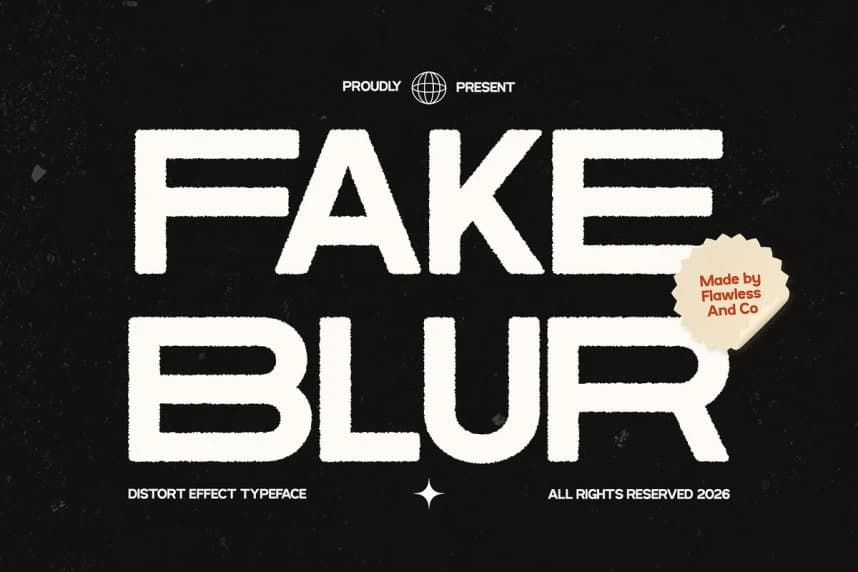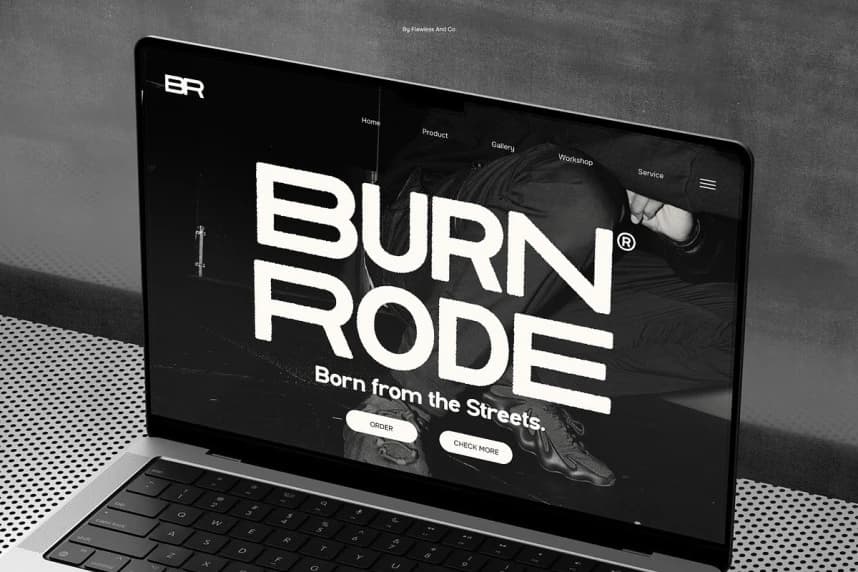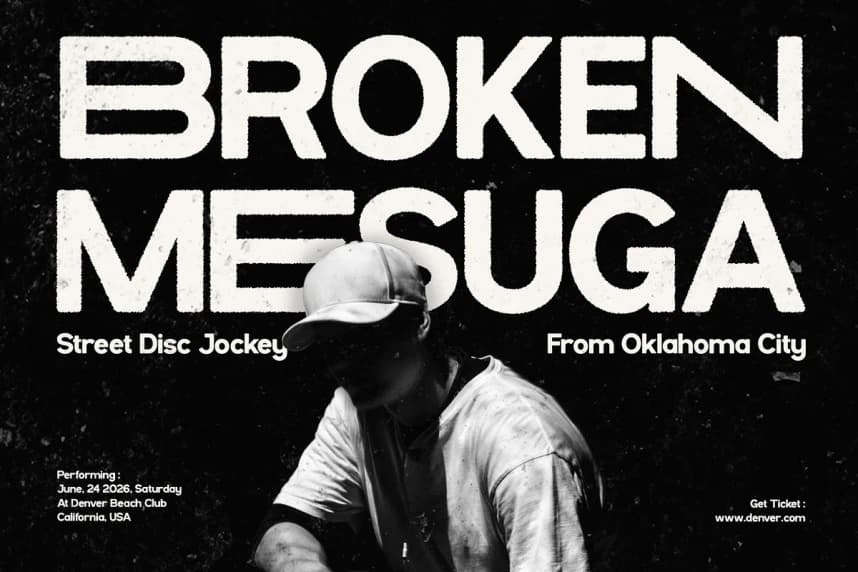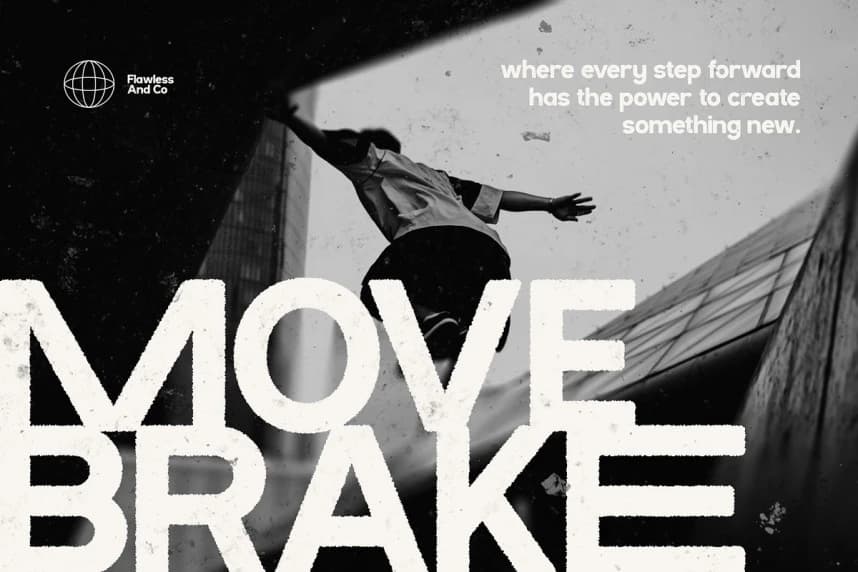
Fake Blur Font
Fake Blur Font is an experimental distort effect sans serif typeface that plays with perception and motion. Designed with a striking blur illusion, its letterforms appear to shift and vibrate, creating a sense of speed and digital distortion.